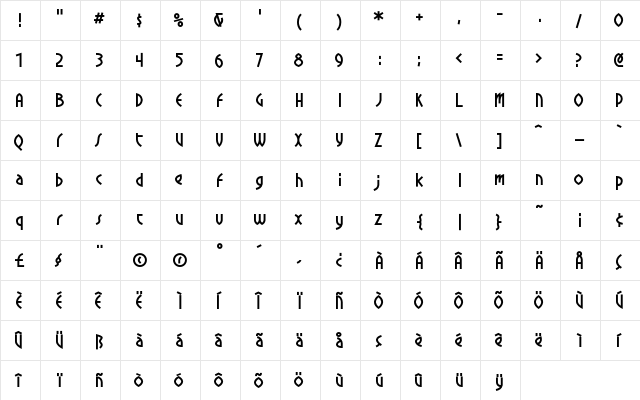
CrowBeak Regular
Design Context for CrowBeak Typeface
CrowBeak is a composed and adaptable typeface that performs quietly and consistently across a wide range of design contexts.
Pro Tip: Pair CrowBeak with a font of contrasting weight or personality to build a more expressive typographic hierarchy.